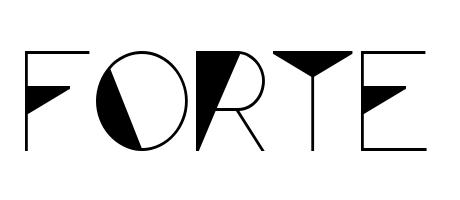
Forte
By Paul K
Forte: A bold sans-serif typeface, geometrically precise yet subtly playful. The "O" and "R" are cleverly bisected with negative space, creating a dynamic visual tension. The overall effect is modern, minimalist, and slightly edgy, a balance of structure and unexpected design. Clean lines and sharp angles contribute to its strong, confident presence.